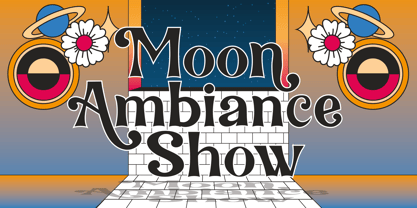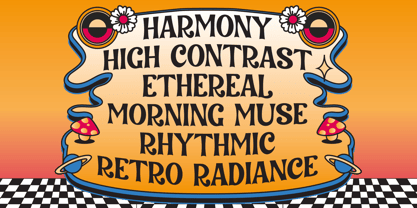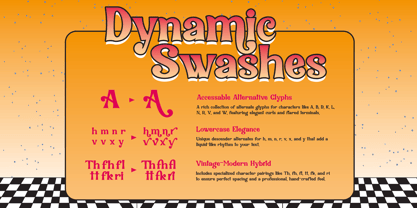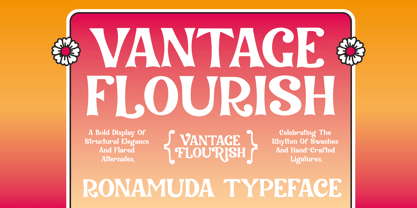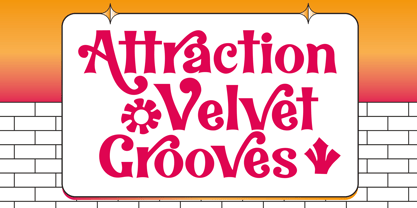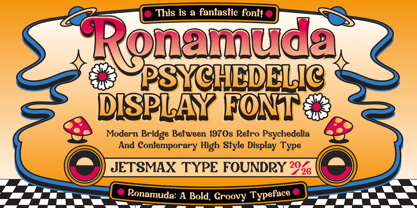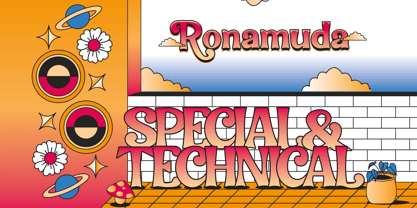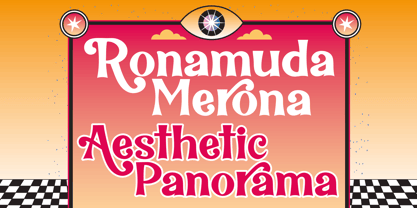
Ronamuda
by Jetsmax Studio
The Ronamuda Font Family was designed by Khairil Anwar and published by Jetsmax Studio. Ronamuda contains 1 styles. More about this family
Ronamuda is a high-contrast display font that captures the “Aesthetic Panorama” of 70s groove and modern luxury. It is a font designed for those who want their headlines to dance. What sets Ronamuda apart is its extensive library of Stylistic Alternates and Ligatures. With a wide array of curvy swashes for both uppercase and lowercase letters, you can transform a standard word into a unique piece of lettering. From the dramatic tails on the uppercase ‘R’ and ‘K’ to the elegant descenders on ‘h’, ‘m’, and ‘n’, this font offers endless possibilities for customization.
Designers: Khairil Anwar
Foundry: Jetsmax Studio